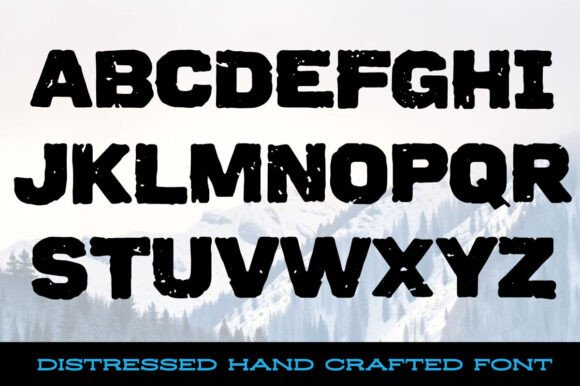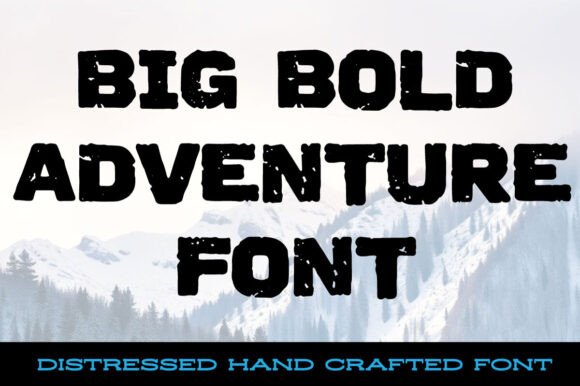
Blizarro Font
Blizarro is a bold, blocky font with a distressed texture that exudes rugged strength and character. Its rough edges and powerful design make it perfect for attention-grabbing headlines, logos, and creative projects. Blizarro’s unique style balances boldness with an element of weathered imperfection, giving it versatility for both vintage and modern aesthetics.This is a display font designed for decorative use, so some characters might not be included.